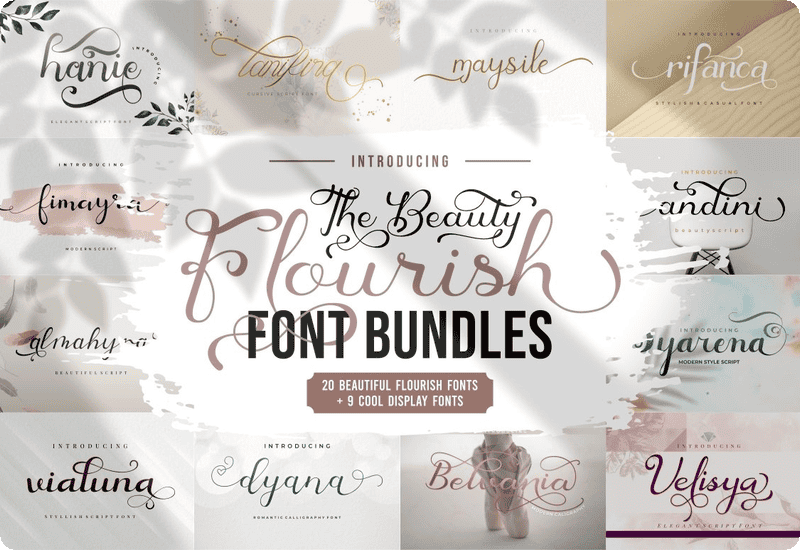
Unlock your creative potential with The Beauty Flourish Font Bundles, a stunning collection of 29 unique font families designed to bring elegance, style, and versatility to your design projects. This exclusive bundle features 19 exquisite flourish fonts and 9 modern display fonts, making it perfect for professional designers, hobbyists, and creatives who want to elevate their work.
What’s Included in the Bundle?
- 19 Beautiful Flourish Fonts: Perfect for adding a touch of elegance and sophistication to your designs.
- 9 Cool Display Fonts: Modern, bold, and creative—ideal for headlines, logos, and eye-catching typography.
- OpenType Features: Enjoy stylistic alternates, swashes, ligatures, punctuation, symbols, and more to add creative flair to your work.
Fonts Included in the Bundle
This font bundle features 29 incredible font families, each carefully crafted to offer unmatched quality and style. Here’s the full list:
- Lanifira
- Armyta
- Dyana
- Maysile
- Velisya
- WildFoxs
- Syahira
- TRAGEDYE
- Fimayra
- Almahyra
- Goldmarble
- VERISTIC
- Gyldan-Clean
- Southaven
- Gyldan
- Oldland
- Rogusta
- Hillway
- RiverLake
- Morlyn
- Alyna
- Emila
- Vialuna
- Rifanca
- Hanie
- Bratayudha
- Hovalik
- Belvania
- Syarena
Why Choose The Beauty Flourish Font Bundles?
- Unmatched Variety: With 29 unique font families, this bundle caters to all your design needs, whether you’re working on vintage, modern, or elegant projects.
- Perfect for Multiple Applications: These fonts are versatile enough for logos, wedding invitations, business cards, t-shirts, posters, and more.
The Beauty Flourish Font Bundles offer an unparalleled opportunity for designers and creatives alike to enhance their projects with a diverse selection of 29 unique font families. With a perfect blend of flourish and display fonts, along with extensive OpenType features and multilanguage support, this bundle equips you with the tools needed to transform your creative vision into reality.